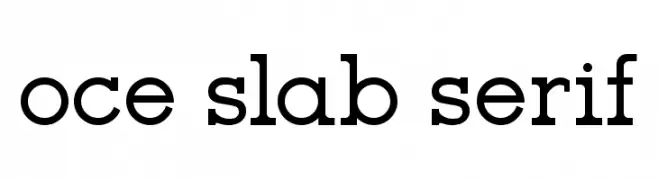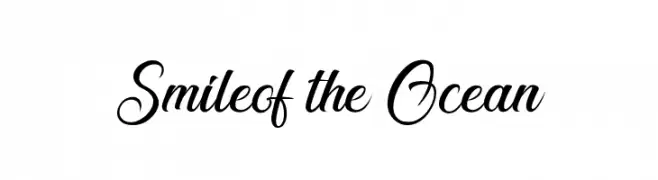
A classic serif font with high contrast and elegant strokes.
A bold, high-contrast serif font with dramatic and elegant features.
An elegant serif italic font with smooth, flowing lines and a refined appearance.
A dynamic and flowing script font with elegant, cursive letterforms.
An elegant script font with ornate swashes and flowing curves.
A bold slab serif font with strong serifs and a modern yet timeless appeal.
A flowing, elegant script font with connected characters and decorative flourishes.
A flowing, cursive font with interconnected characters and a handwritten style.